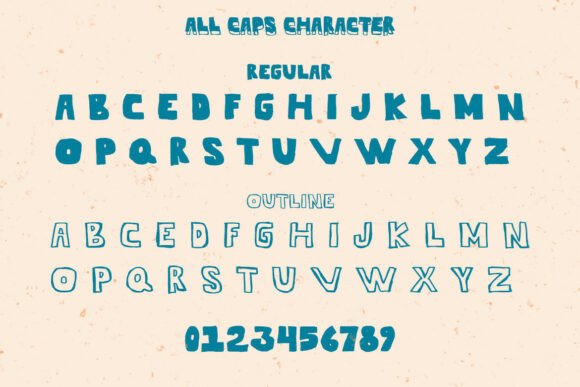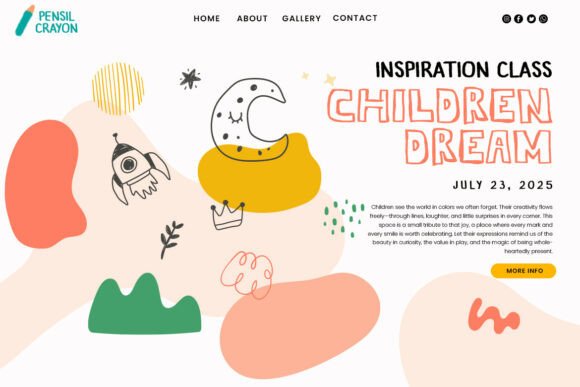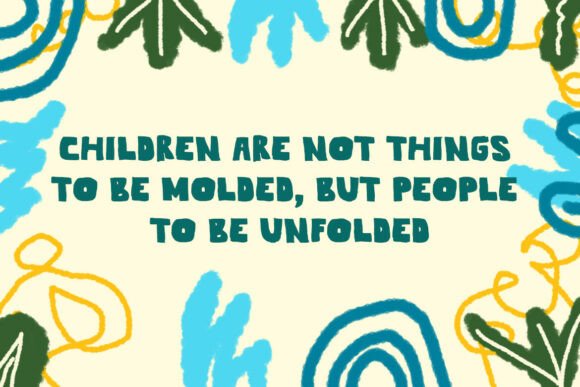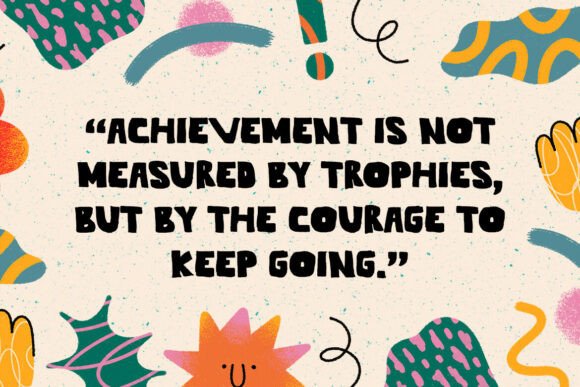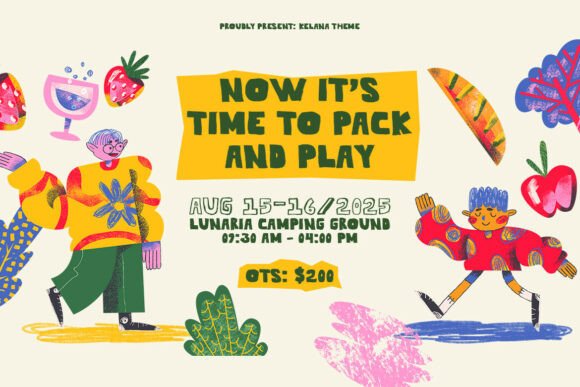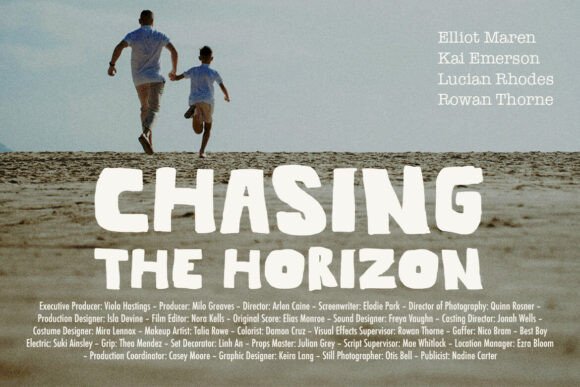
Introducing Glackzo Font: The Playful and Whimsical Typeface That Brings Joy to Design
In the world of typography, fonts can evoke emotions, convey personalities, and set the tone for a brand or design. Glackzo font is one such typeface that radiates joy, playfulness, and a carefree spirit. This bold and spirited handwritten font is perfect for designers and crafters looking to add a touch of whimsy and personality to their work.
The Characteristics of Glackzo Font
Glackzo font boasts chunky curves and a handcrafted warmth that gives it a perfectly imperfect feel. Each letter seems to leap from the pages of a whimsical sketchbook, bursting with playful energy. The font’s expressive quirks, rough edges, and vibrant rhythm infuse every word with character and fun, making it a delightful choice for designs that need a dash of heart and happiness.
Perfect for Kids’ Branding and Educational Materials
Glackzo font is an excellent choice for kids’ branding, educational materials, and children’s illustrations. Its playful and cheerful nature makes it perfect for designs that cater to a young audience. The font’s carefree charm and whimsical feel will transport kids to a world of imagination and creativity, making it an ideal choice for storybooks, activity sheets, and educational resources.
Ideal for Party Invitations and Cheerful Illustrations
Glackzo font is also perfect for party invitations, cheerful illustrations, and any design that requires a celebratory feel. Its bold and spirited nature makes it an excellent choice for designs that need to grab attention and evoke a sense of excitement. Whether you’re designing invitations for a birthday party, a baby shower, or a graduation ceremony, Glackzo font is sure to add a touch of whimsy and fun to your design.
The Benefits of Using Glackzo Font
So, what makes Glackzo font a great choice for designers and crafters? Here are just a few benefits of using this delightful typeface:
- Unique and playful personality: Glackzo font has a one-of-a-kind personality that will set your design apart from the rest.
- Handcrafted warmth: The font’s handcrafted feel gives it a warm and inviting nature that’s perfect for designs that require a personal touch.
- Versatile: Glackzo font can be used for a wide range of designs, from kids’ branding and educational materials to party invitations and cheerful illustrations.
- Easy to read: Despite its playful nature, Glackzo font is easy to read and understand, making it perfect for designs that require a clear and concise message.
Tips for Using Glackzo Font Effectively
To get the most out of Glackzo font, here are a few tips to keep in mind:
- Use it sparingly: Glackzo font is a bold and spirited typeface, so use it sparingly to avoid overwhelming your design.
- Pair it with contrasting fonts: Pair Glackzo font with contrasting fonts to create visual interest and add depth to your design.
- Experiment with colors: Glackzo font looks great in bright and bold colors, so don’t be afraid to experiment and find the perfect hue for your design.
Glackzo font is a delightful and playful typeface that’s perfect for designers and crafters looking to add a touch of whimsy and personality to their work. Its bold and spirited nature, handcrafted warmth, and versatile feel make it an excellent choice for a wide range of designs. Whether you’re working on kids’ branding, educational materials, party invitations, or cheerful illustrations, Glackzo font is sure to bring joy and happiness to your design.